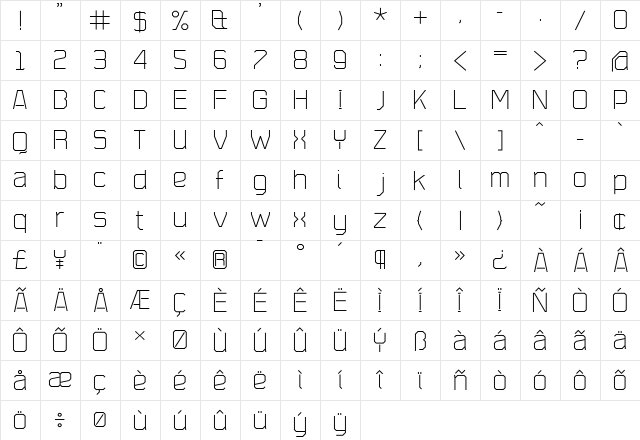
Plotta Regular
Design Context for Plotta Typeface
Plotta takes a measured approach to typography — its balanced proportions and neutral character make it a reliable workhorse for both digital and print work.